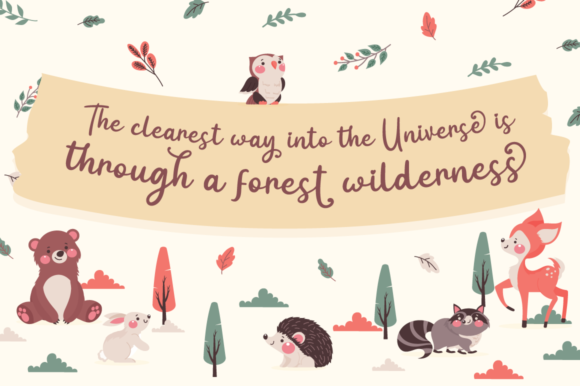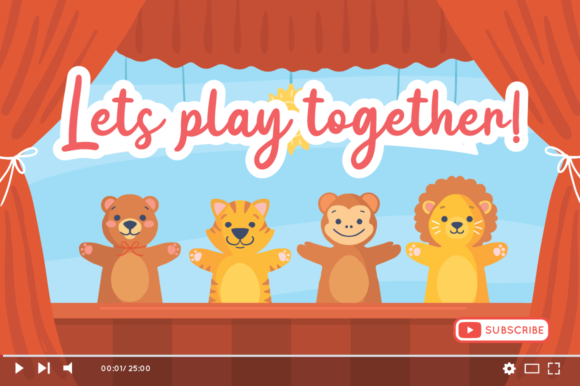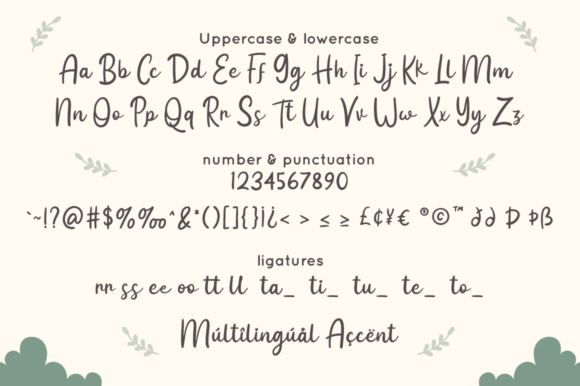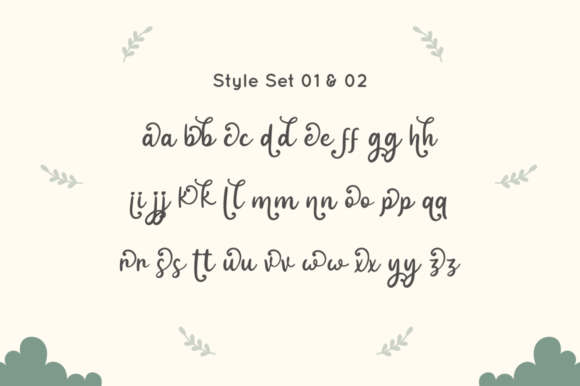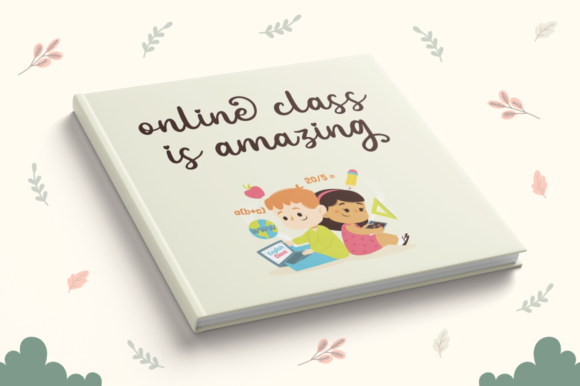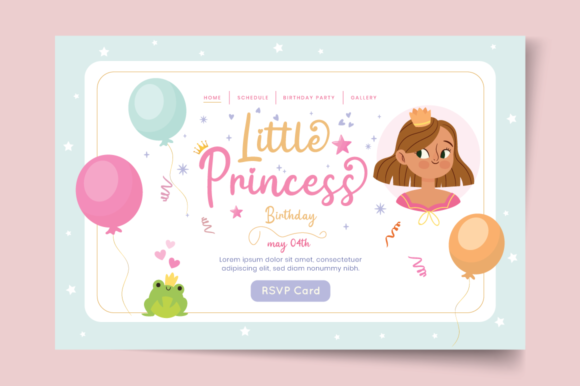
Introduction to Intima Politha Font
Intima Politha is a sweet, all round and flexible handwritten font.
Warm, romantic and jolly, this font will turn each of your project ideas into real works of art Have fun with this beautiful font and explore its endless variations.